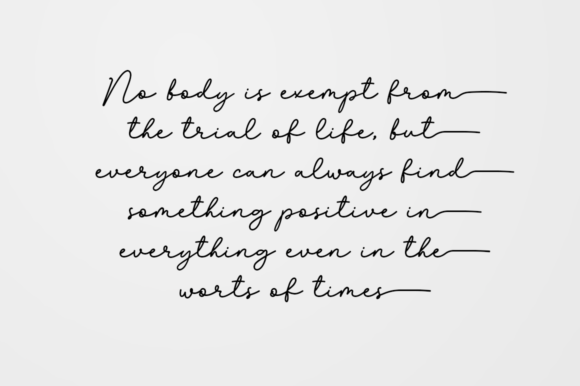
Gorinchem Font
Gorinchem is an elegant handwritten font. Get inspired by its unique look and create cute wedding invitations, amazing greeting cards and eye-catching social media posts.